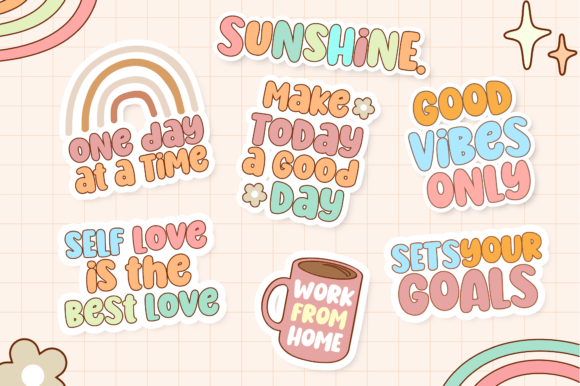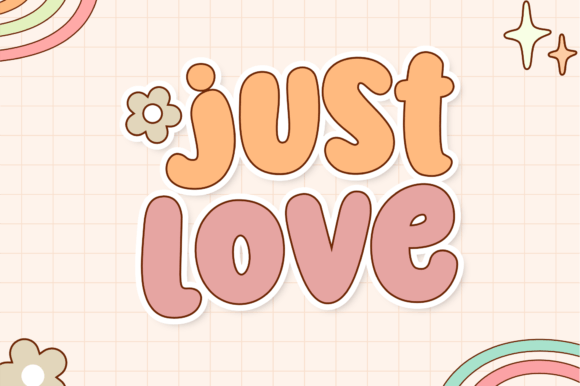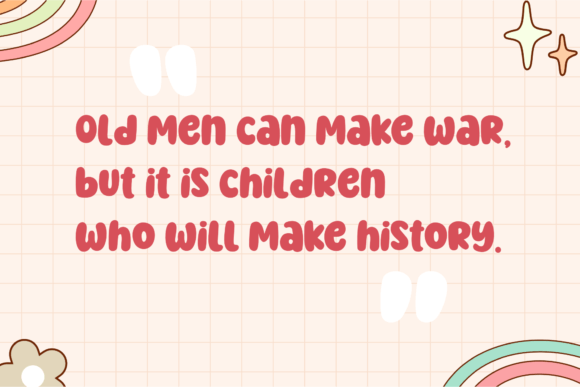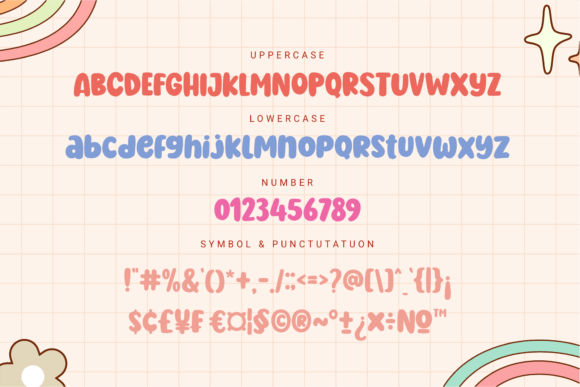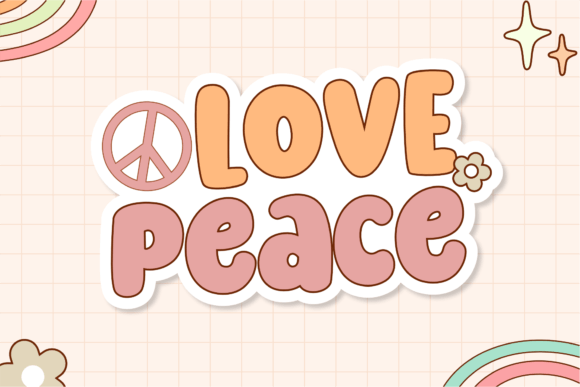
Introduction to Party Days Font
Have you ever been stuck on a creative project, searching for the perfect font to give it that extra oomph? You know, that one magical touch that makes your design stand out from the crowd? For designers, finding the right font can be a game-changer. It’s like stumbling upon the perfect paint color for a room – it instantly elevates the entire space. And that’s exactly what the Party Days Font can do for your next big design project.
This groovy font is a must-have in any designer’s toolkit, offering a fun and playful vibe that’s perfect for book covers, posters, packaging, and much more. With its retro bold typography, the Party Days Font is a high-quality design resource that’s sure to add a touch of creativity to your next project.
Key Features of Party Days Font
- Transparent background for seamless integration with any design
- Perfect for parties, celebrations, and other festive occasions, adding a touch of fun to any design
- Unique, hand-drawn style that adds a personal touch to any creative project
Honest Review: Party Days Font
I recently had the chance to work with the Party Days Font, and I must say, it’s been a delightful experience. This font is perfect for any creative project that needs a touch of playfulness and fun.
What works well: ✨ The font’s transparency feature allows for seamless integration with any background, giving designers the flexibility to create unique and eye-catching designs. The high-quality design of the font makes it suitable for various design resources, from posters to digital graphics.
- Perfect for creative projects: The font’s playful design makes it ideal for projects that require a fun and energetic vibe.
- Transparency feature: The ability to change the background color behind the text adds an extra layer of creativity to any design.
What doesn’t work so well: ⚠️ The font’s limited styles and weights might not be suitable for more serious or formal projects. Additionally, the font’s design may not be as versatile as some other options on the market.
Overall impression: The Party Days Font is a great addition to any designer’s toolkit. Its playful design and transparency feature make it perfect for creative projects, and its free download option makes it an excellent choice for designers on a budget. While it may have some limitations, the font’s unique features make it a valuable resource for any designer looking to add some fun and energy to their designs.
The Party Days Font is perfect for various creative projects, including invitations, party decorations, and social media graphics. You can also use it for business cards, flyers, and brochures to give your brand a unique touch.
To get the most out of the Party Days Font, experiment with different font sizes, colors, and styles. You can also combine it with other design elements, such as images and graphics, to create a unique and eye-catching design.
Yes, the Party Days Font is a high-quality design resource, carefully crafted to ensure crisp and clear typography. It’s perfect for any creative project that requires a fun and playful touch.